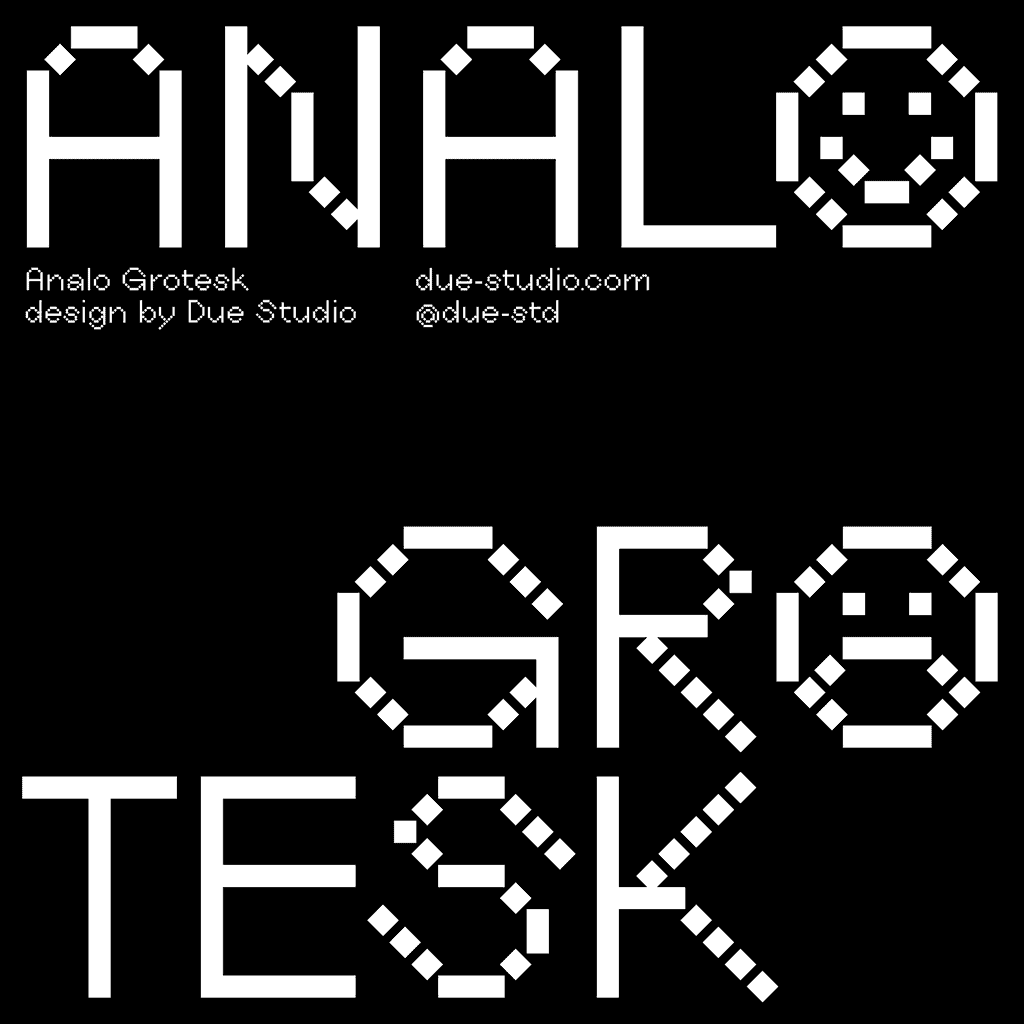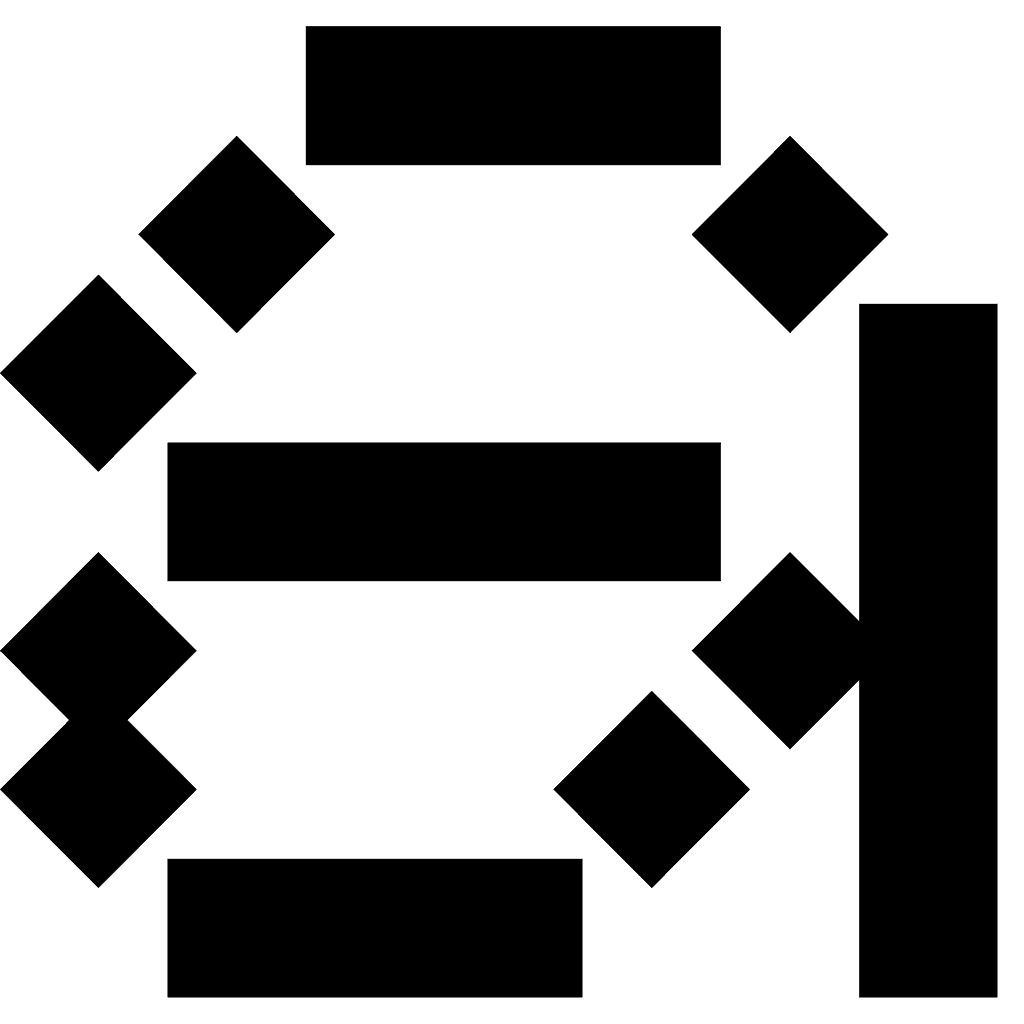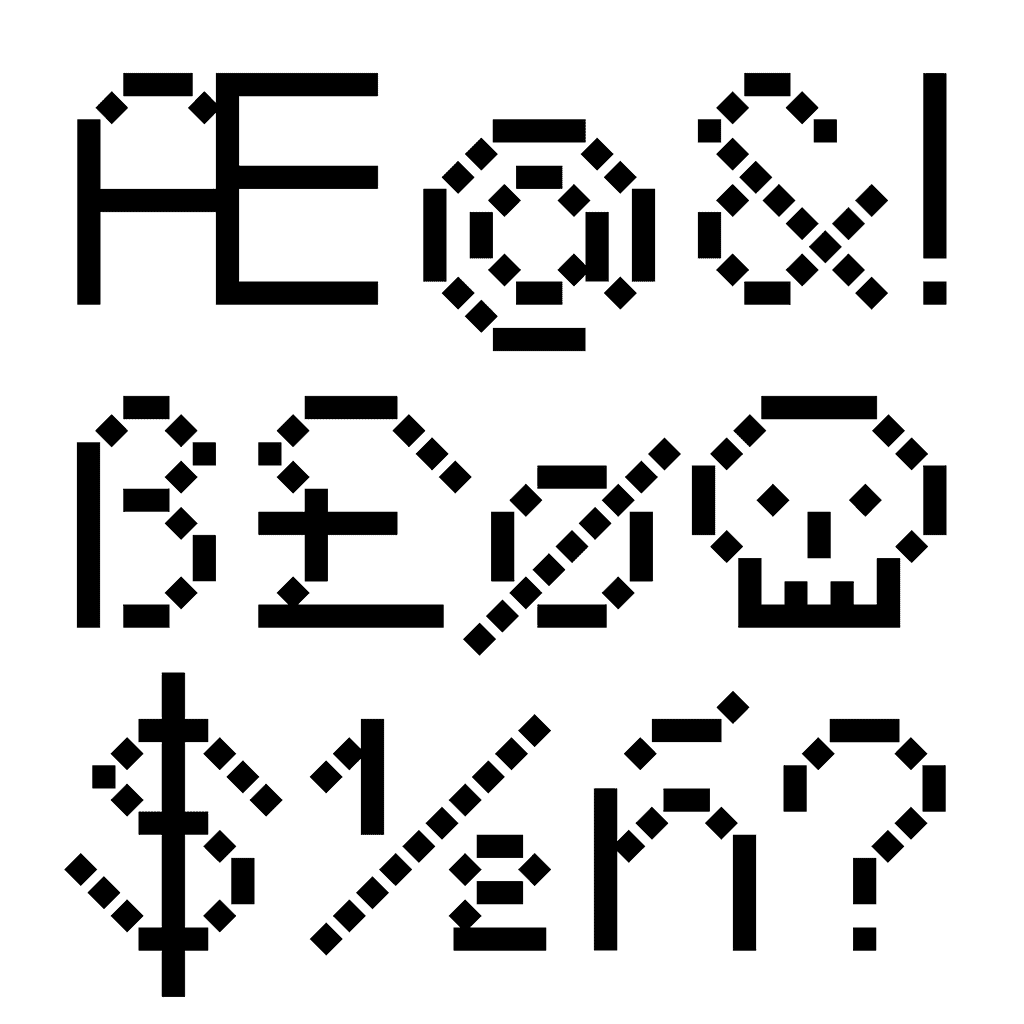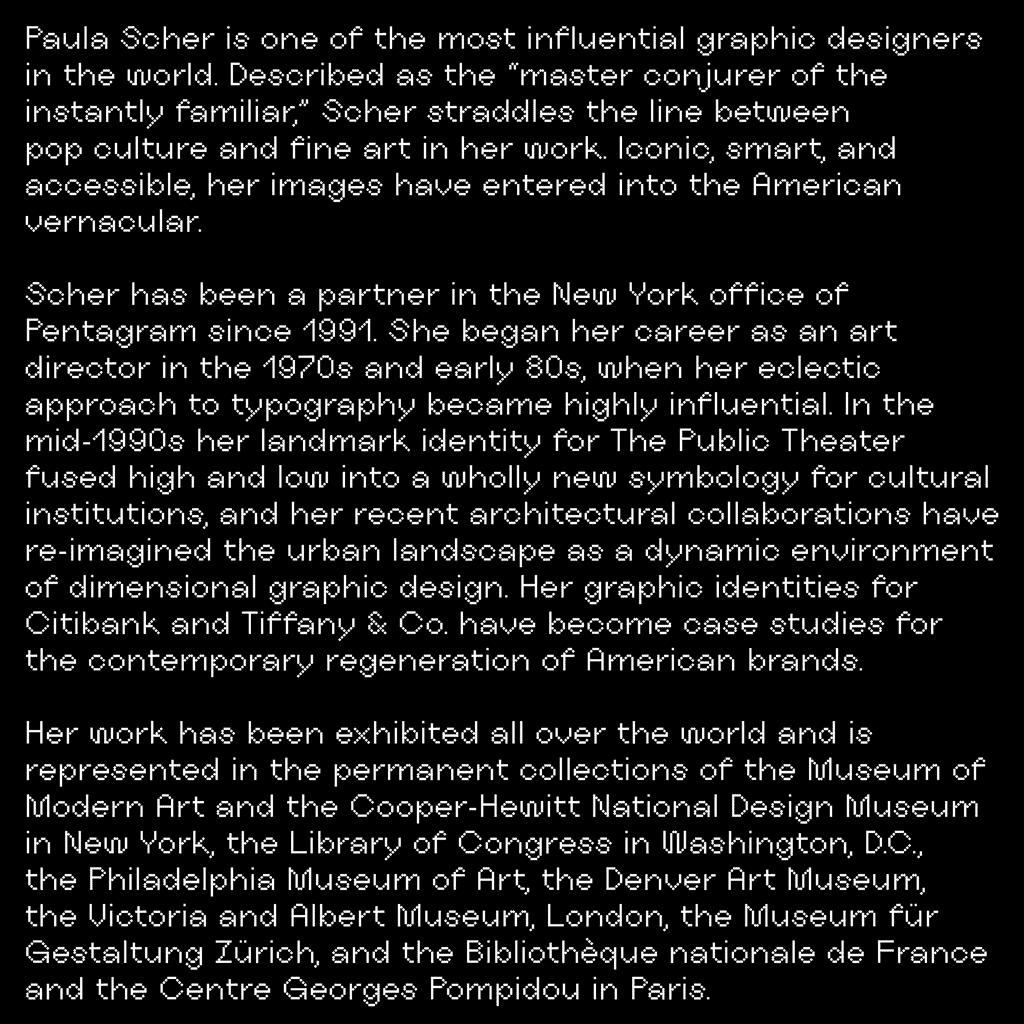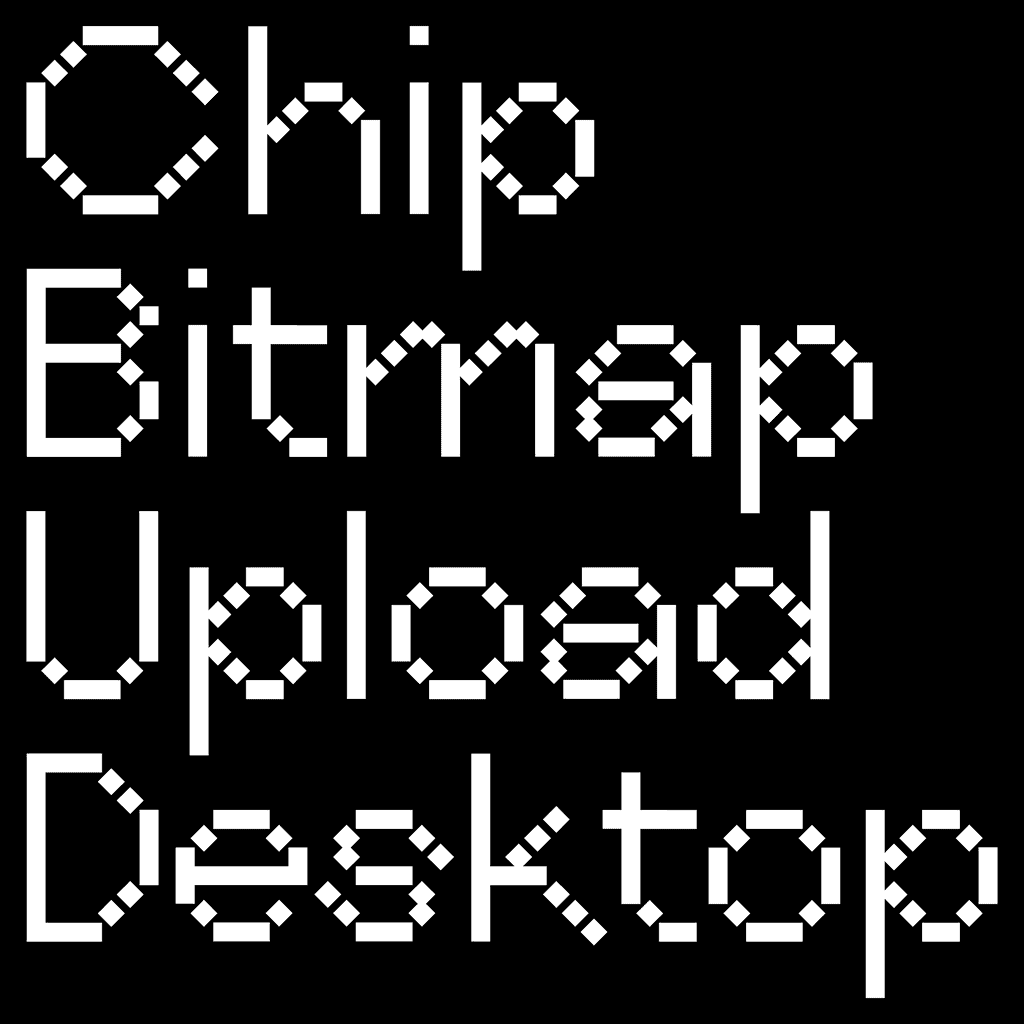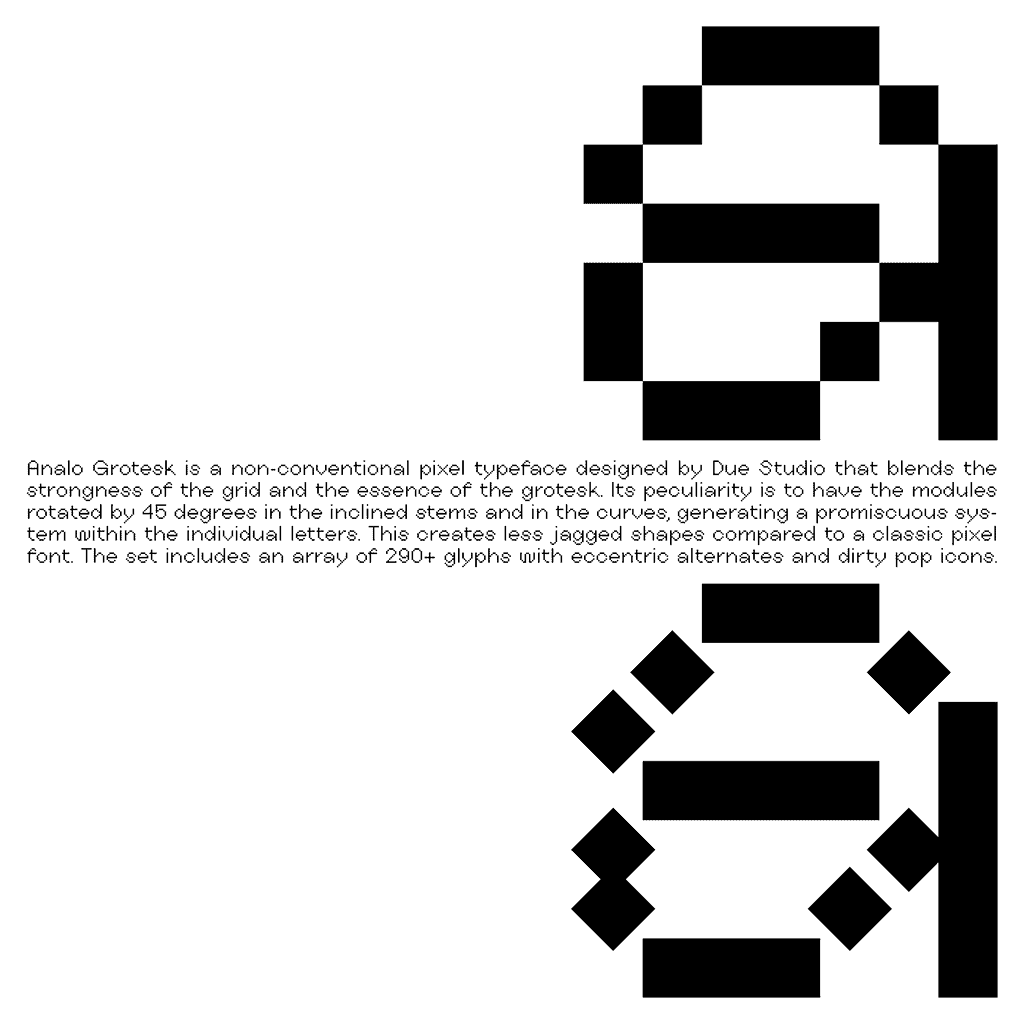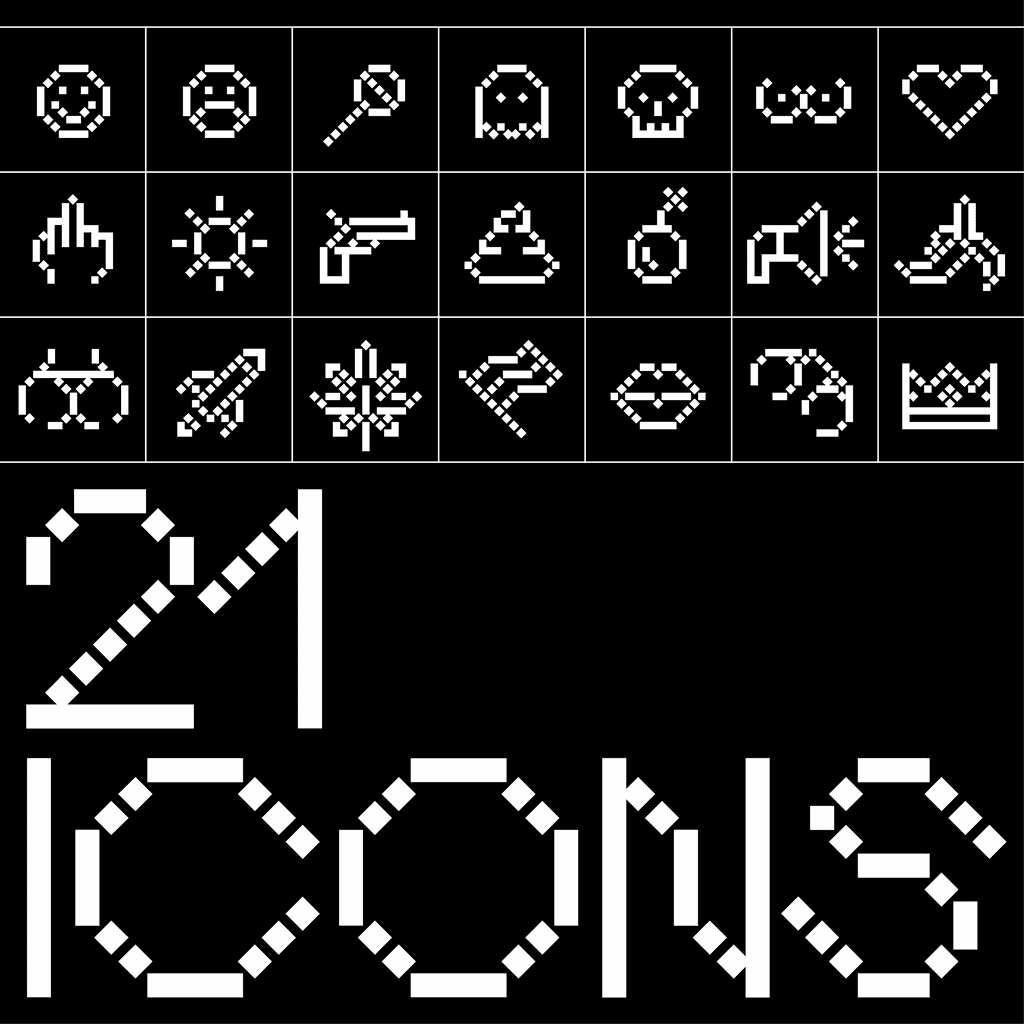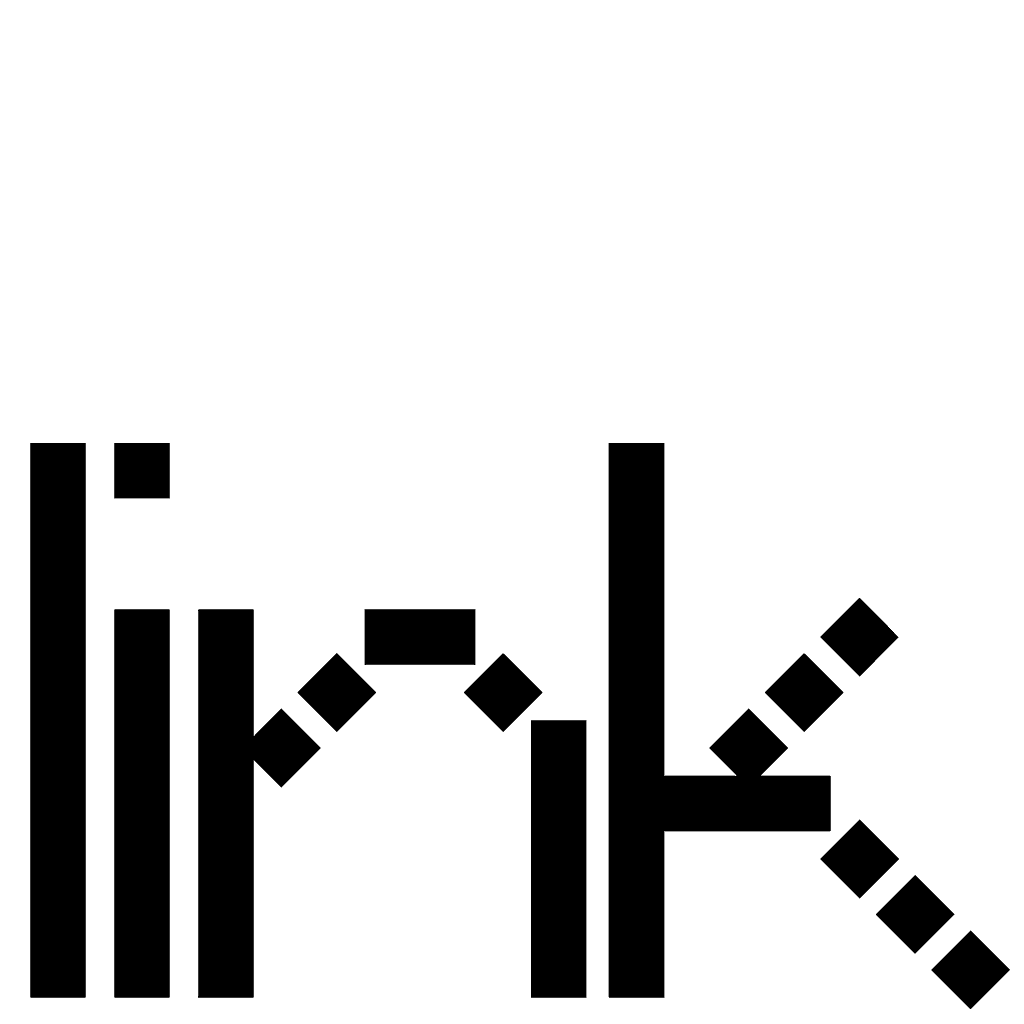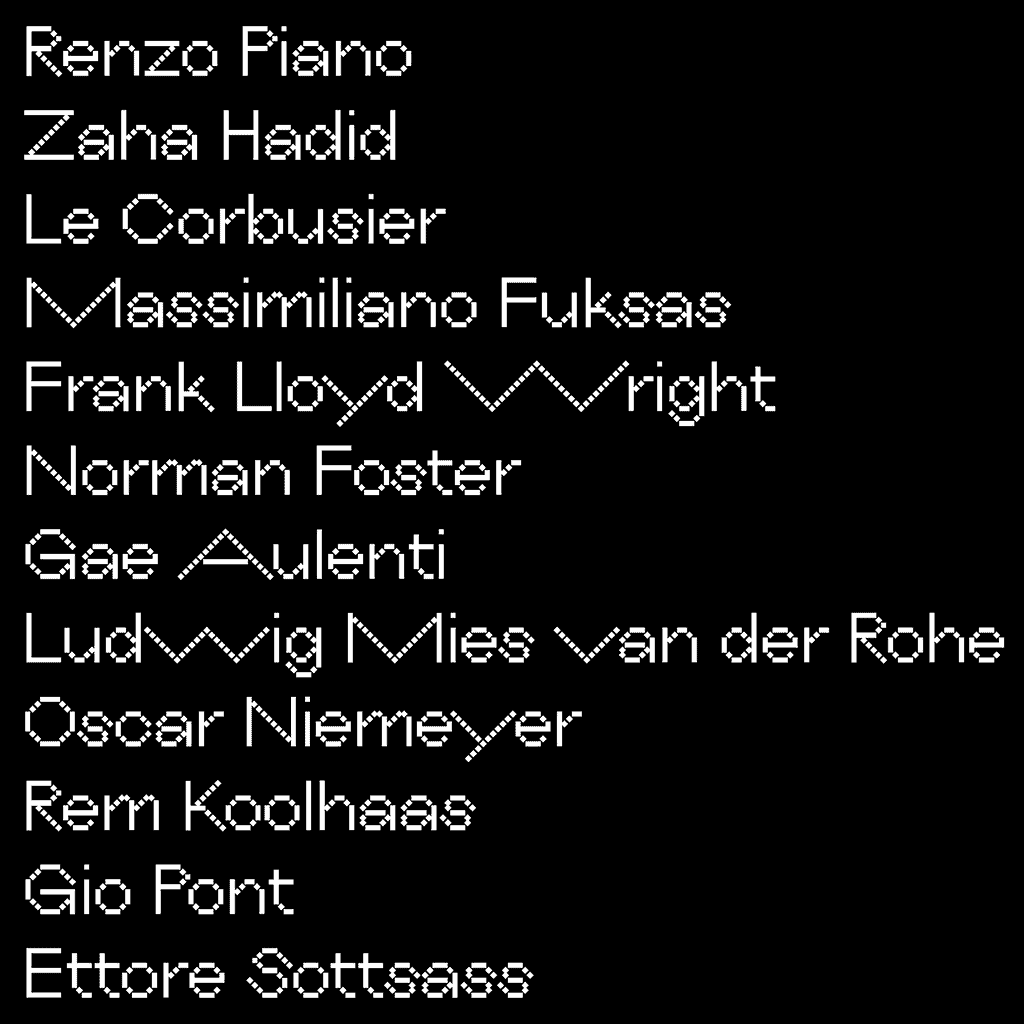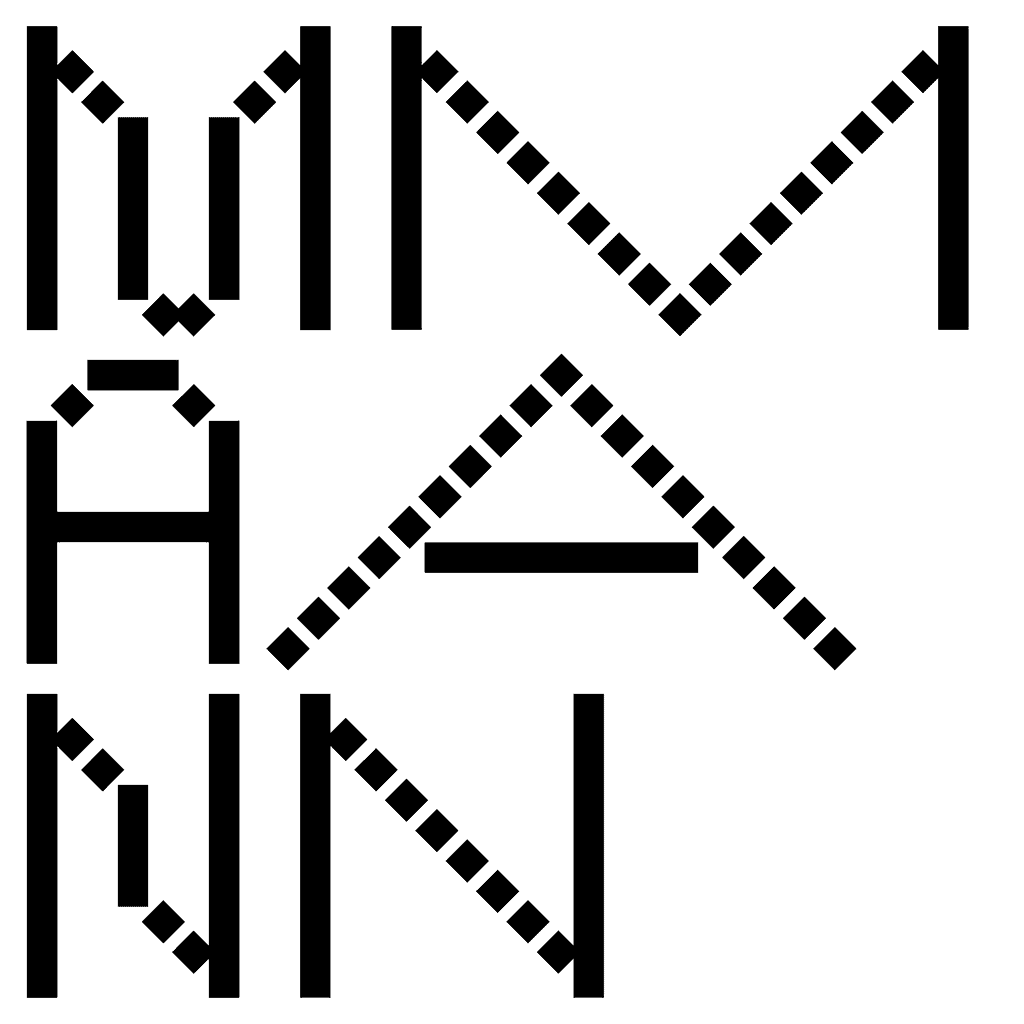
Analo Grotesk
Analo Grotesk is a non-conventional pixel typeface which blends the strength of the grid and the essence of the grotesk. With its modules rotated by 45 degrees in the curves and inclined stems, this typeface creates a promiscuous system within the individual letters; challenging the norm in terms of the look you'd expect from a pixel font.
This peculiarity generates a promiscuous system within the individual letters, resulting in less jagged shapes than a classic pixel font. The set includes an array of eccentric alternates and dirty pop icons.
Analo Grotesk is a non-conventional pixel typeface which blends the strength of the grid and the essence of the grotesk. With its modules rotated by 45 degrees in the curves and inclined stems, this typeface creates a promiscuous system within the individual letters; challenging the norm in terms of the look you'd expect from a pixel font.
This peculiarity generates a promiscuous system within the individual letters, resulting in less jagged shapes than a classic pixel font. The set includes an array of eccentric alternates and dirty pop icons.